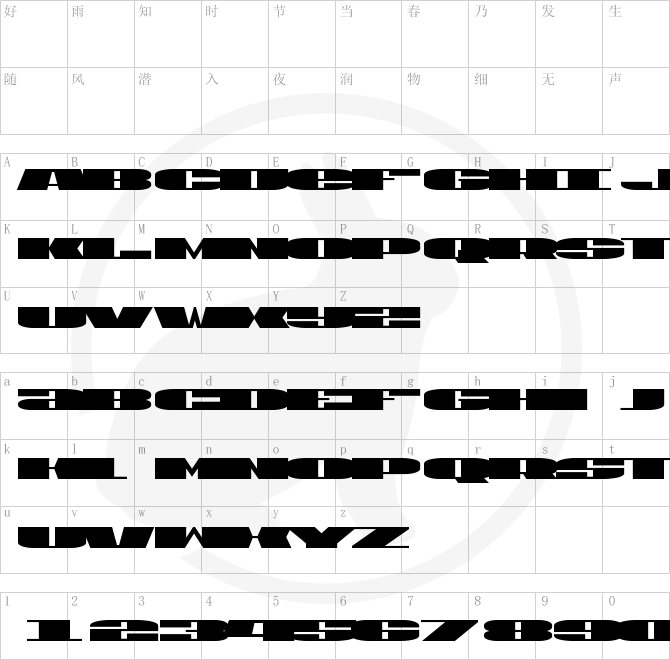
- Font Name:U.S.A. Expanded
U_S_A_Expanded-copy-2-.ttf is a very beautiful artistic font, U_S_A_Expanded-copy-2-.ttf is widely used in the design and printing of various books and pictures,U_S_A_Expanded-copy-2-.ttf has a strong visual impact,U_S_A_Expanded-copy-2-.ttf is a commonly used font in newspapers, magazines and books, and is used in posters, e-commerce Poster design, store design, logo design, font design and other fields.U_S_A_Expanded-copy-2-.